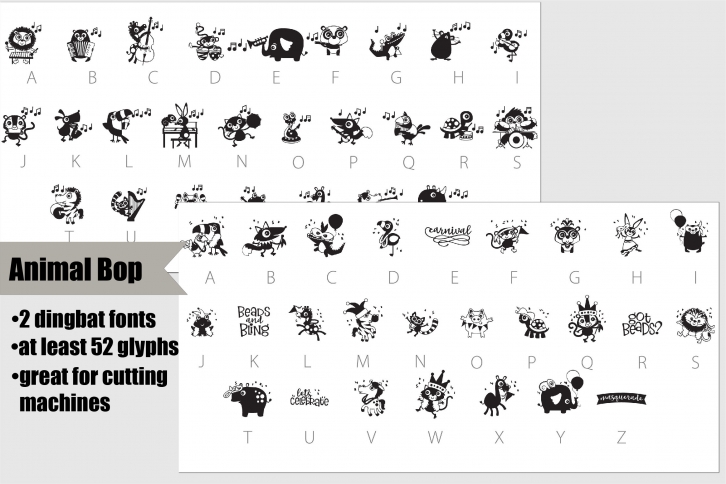
There are two dingbat fonts in this Animal Bop bundle. One has adorable celebratory animals, and the other has them celebrating Mardi Gras! Each has multiple glyphs. Perfect for vinyl and cutting machines!